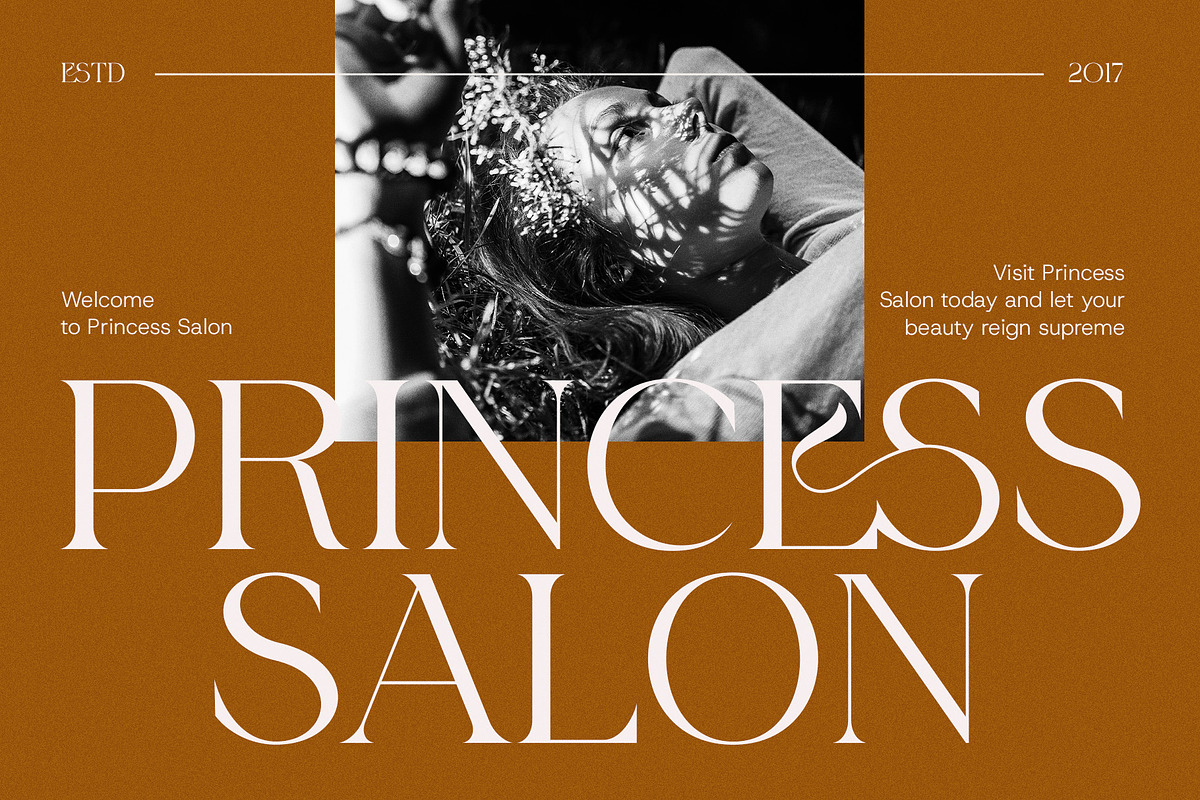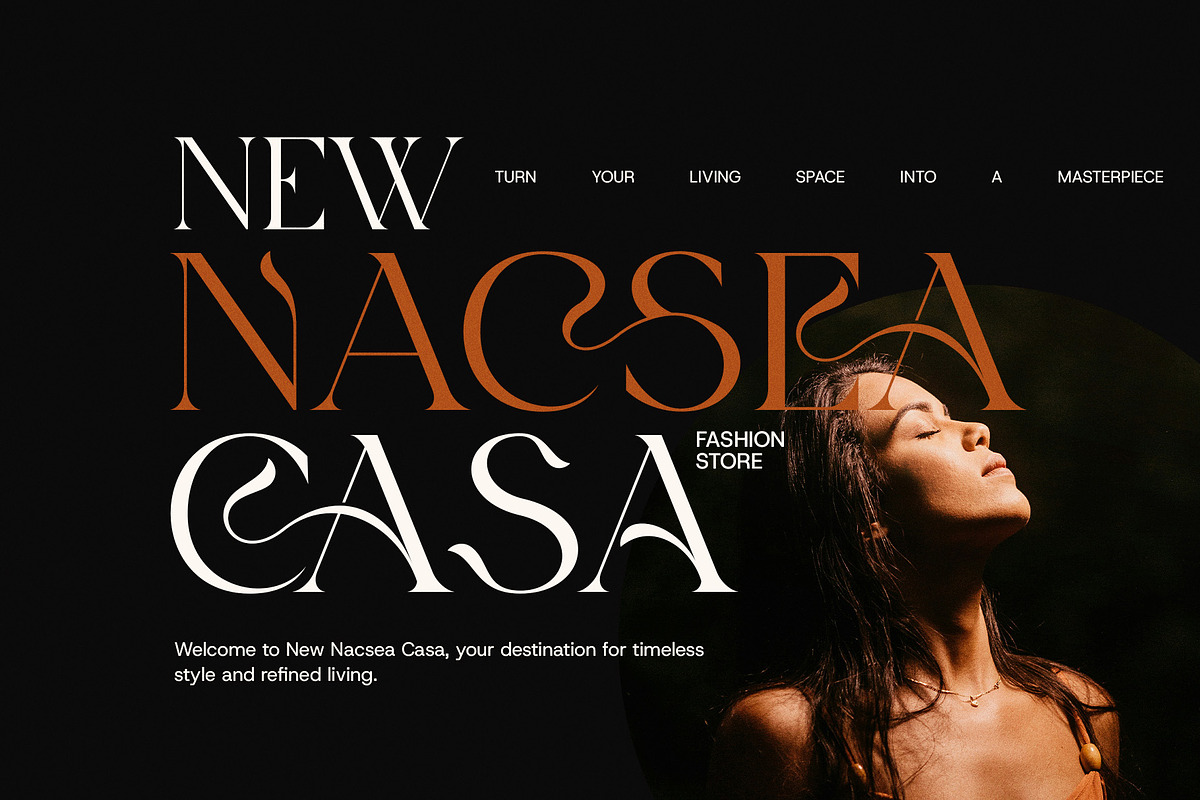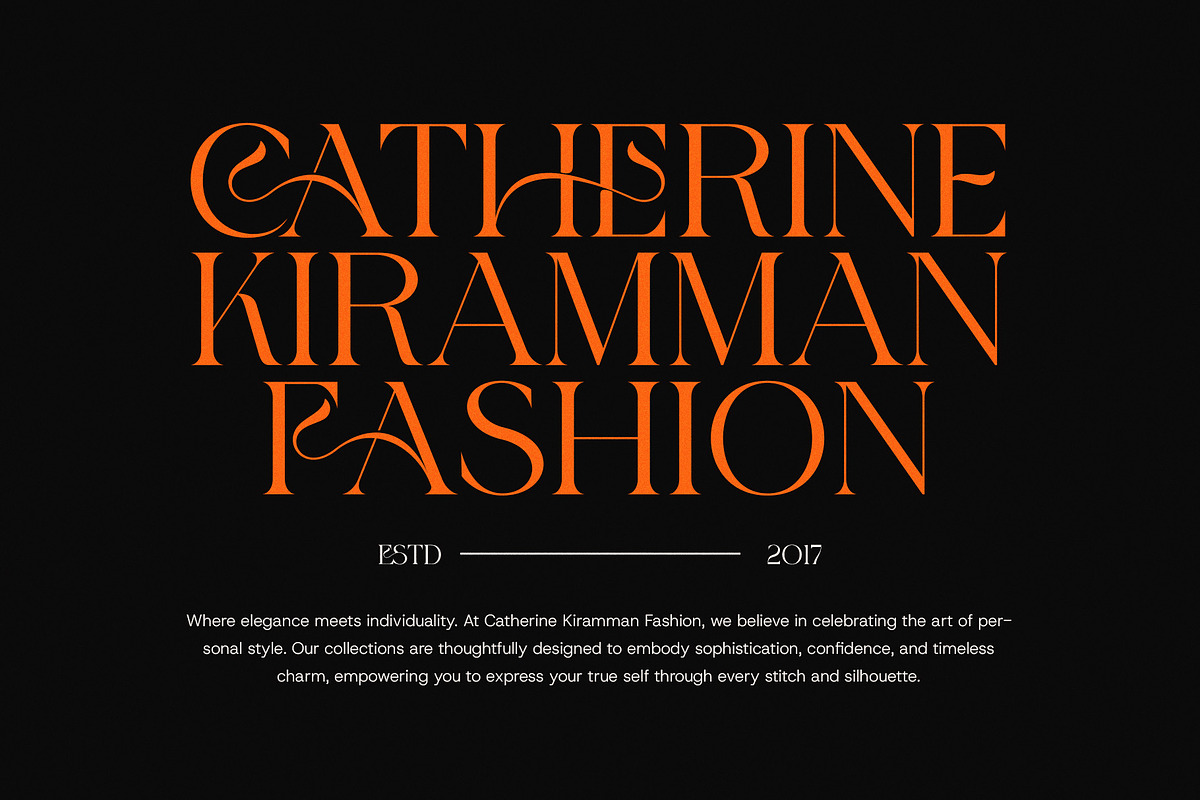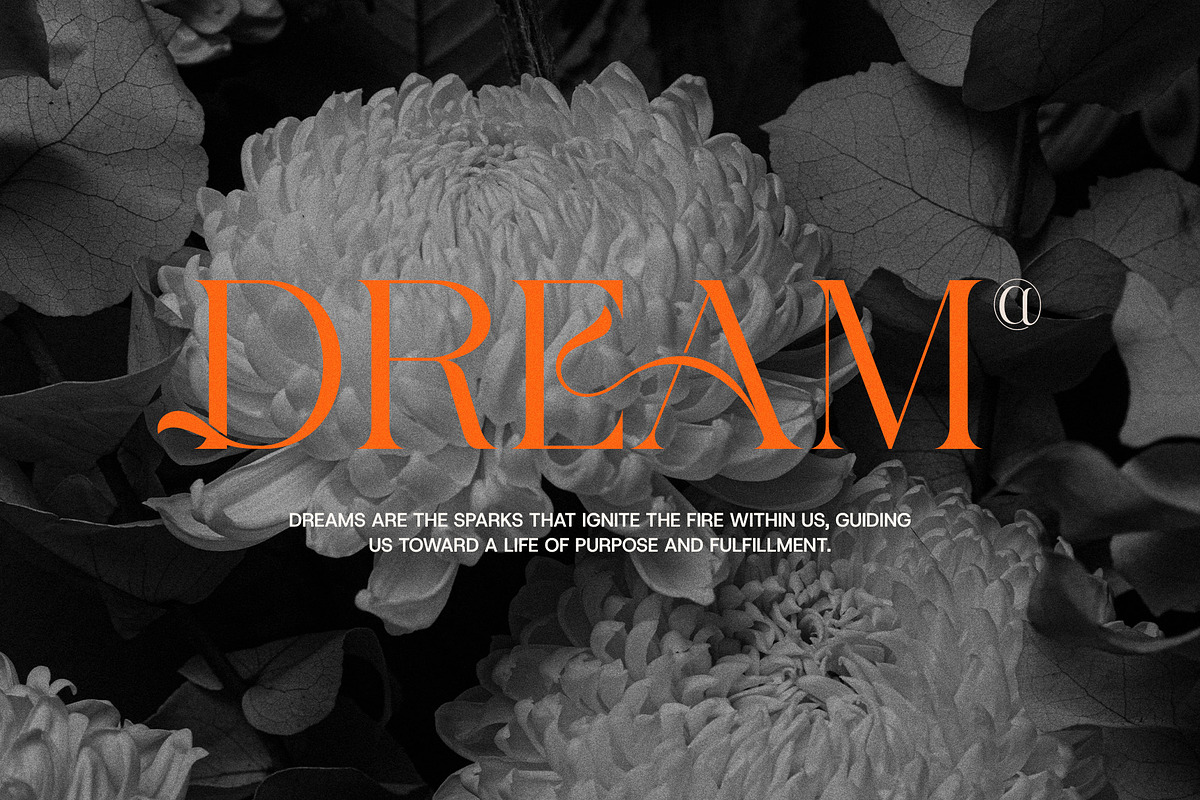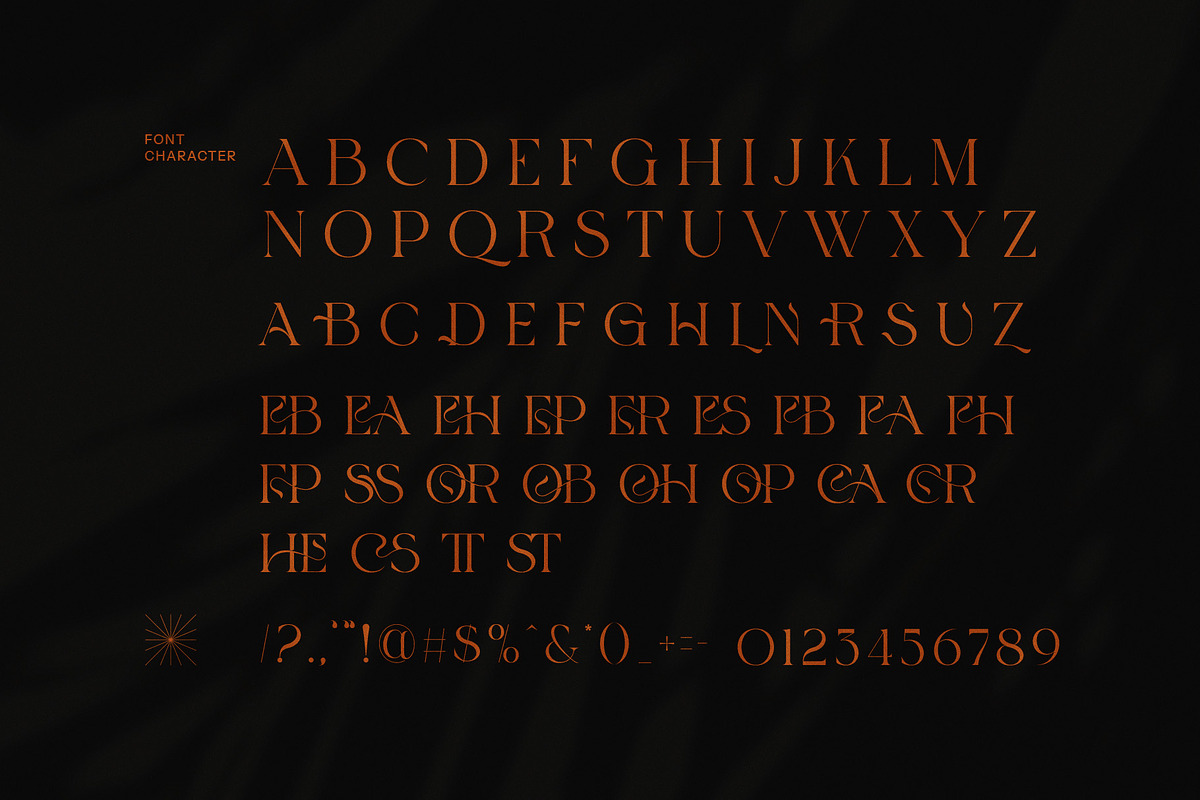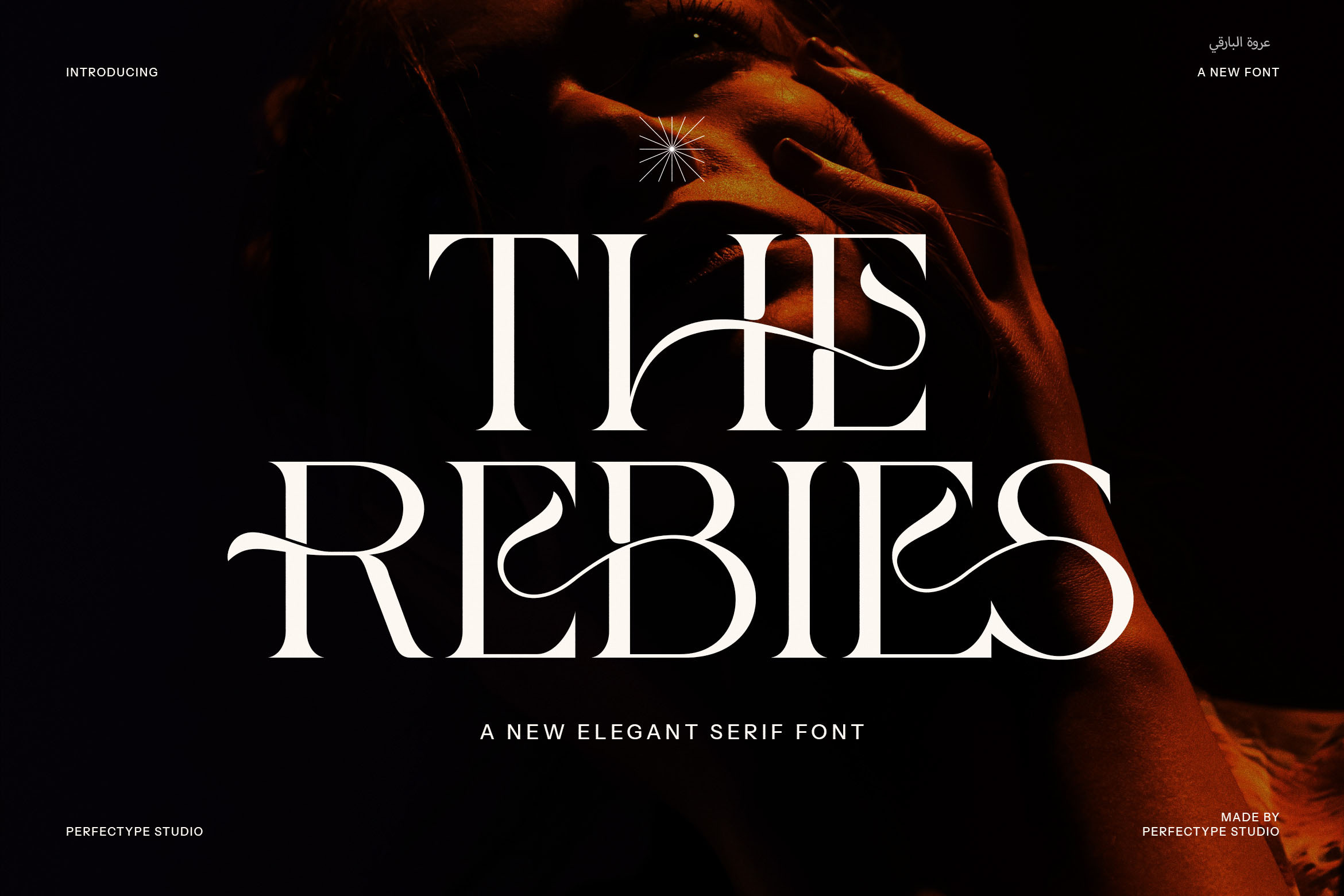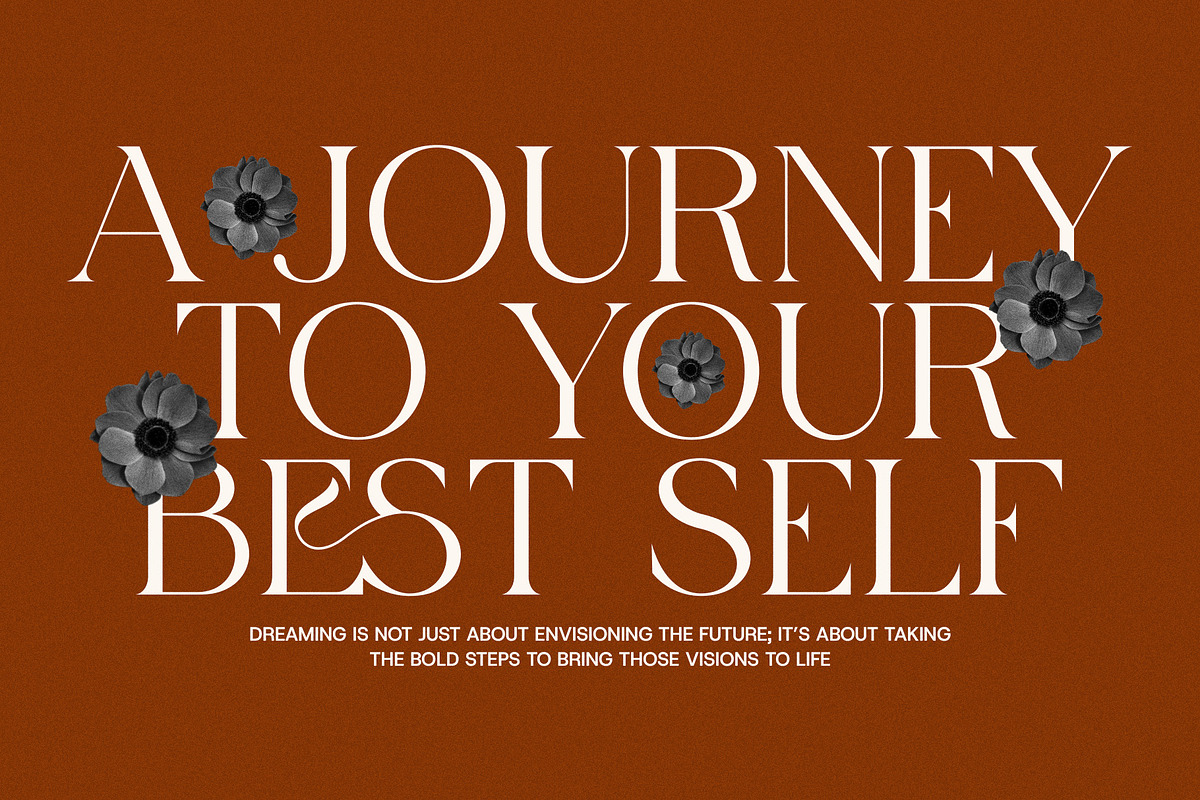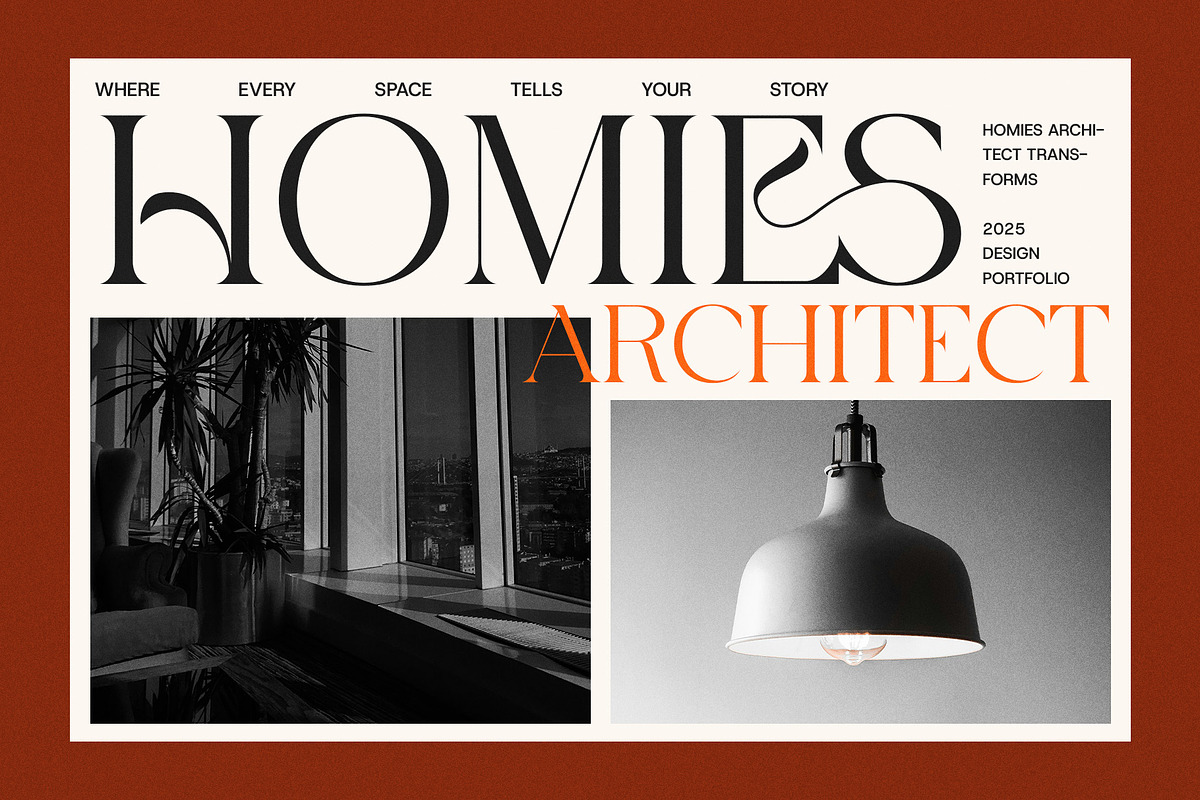
The Rebies Elegant Serif Font
The Rebies Elegant Serif Font is a sophisticated and modern typeface designed to bring timeless elegance to any project. Featuring exquisite ligatures and a variety of alternate letterforms, this font stands out for its refined charm and distinctive character. With its sleek serif details and contemporary aesthetic, Rebies is a perfect choice for both luxurious and stylish brand identities, offering versatility across multiple applications.
Whether you're crafting high-end logos, designing premium websites, or curating visually striking magazine layouts, the Rebies font shines. Its seamless blend of classic serif structure and fresh, innovative design makes it ideal for upscale boutiques, product labels, advertisements, and any project requiring a touch of elegance. Each character in Rebies is thoughtfully crafted to maintain readability while exuding a refined, fashionable look.
Rebies Elegant Serif Font isn't just about beauty—its functionality in print and digital mediums ensures it's a must-have tool for designers. With its beautiful ligatures and alternates, it provides an added layer of creativity, enabling customizations that give each design a unique, high-quality finish. Whether you're designing for food brands, fashion labels, or luxury products, Rebies delivers sophistication that enhances the visual appeal of your creations. Elevate your brand's presence with Rebies—a font that embodies both elegance and modernity in every curve.